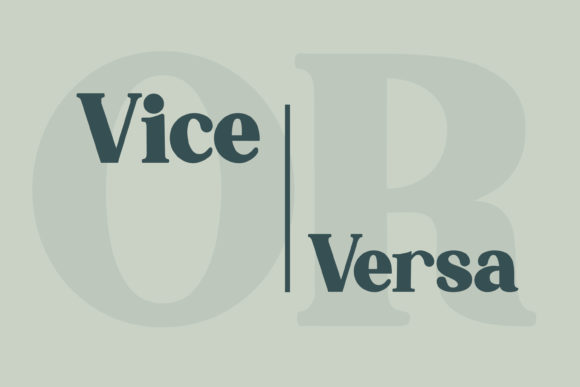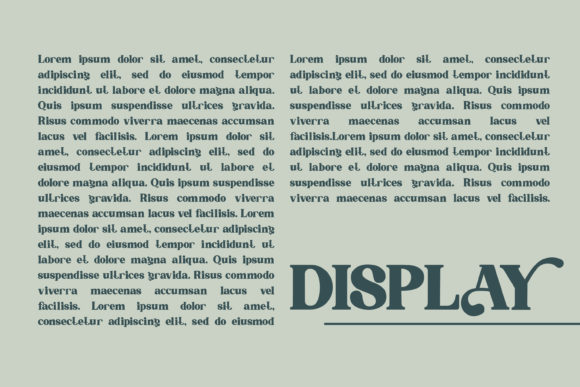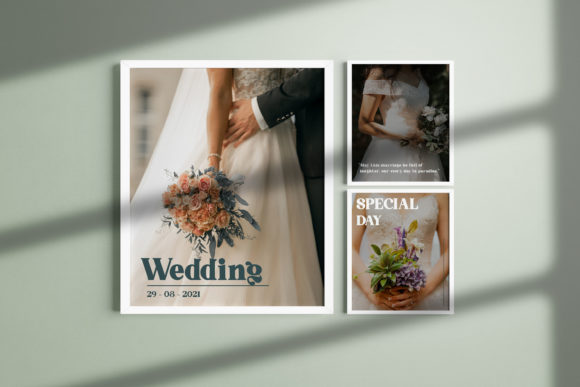
Introduction to Bequest Font
Bequest is a thick lettered and trendy serif font.
This font is PUA encoded which means you can access all of the glyphs and swashes with ease Fall in love with its incredibly versatile style and use it to create spectacular designs.
Key Features of Bequest Font
Why Choose Bequest Font?
Bequest Font offers exceptional quality and versatility, making it a valuable addition to your design toolkit. Whether you’re creating for personal projects or commercial use, Bequest Font delivers professional results.